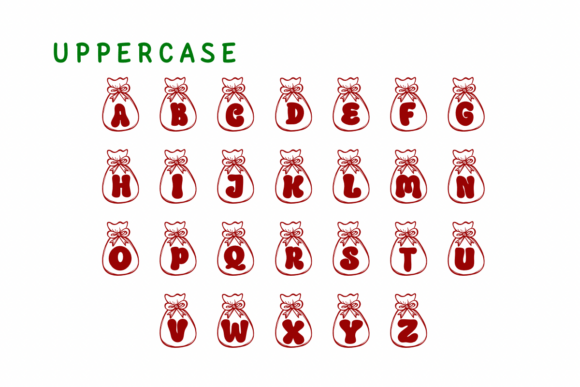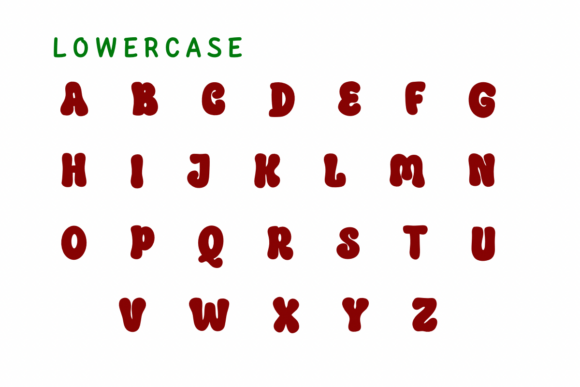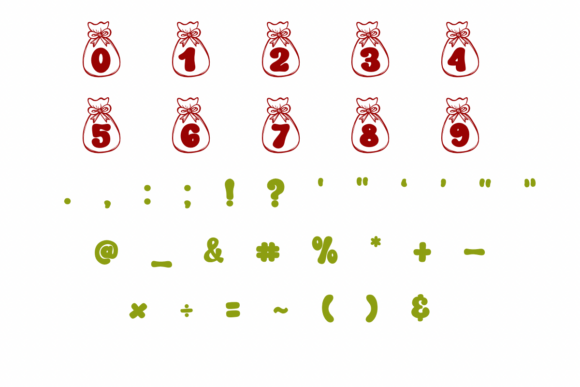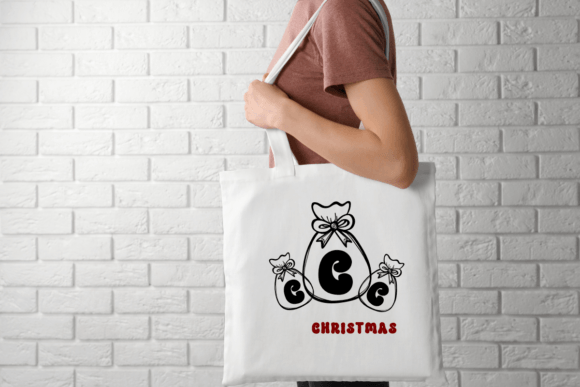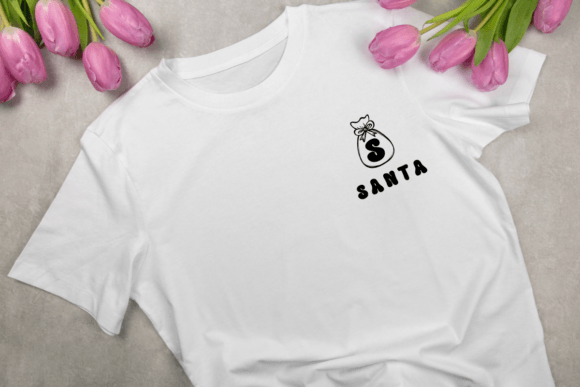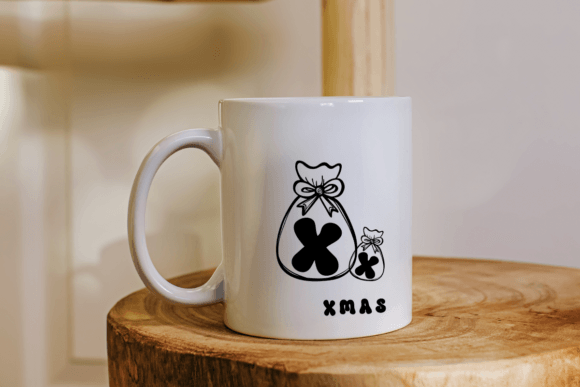
Introduction to Santa Gift Bag Font
Santa Gift Bag is a playful, decorative font where each letter looks like it’s carved or engraved onto Santa’s big, magical gift bag.
It has a warm holiday feel, making it perfect for Christmas cards, gift tags, or festive decorations .
Key Features of Santa Gift Bag Font
Why Choose Santa Gift Bag Font?